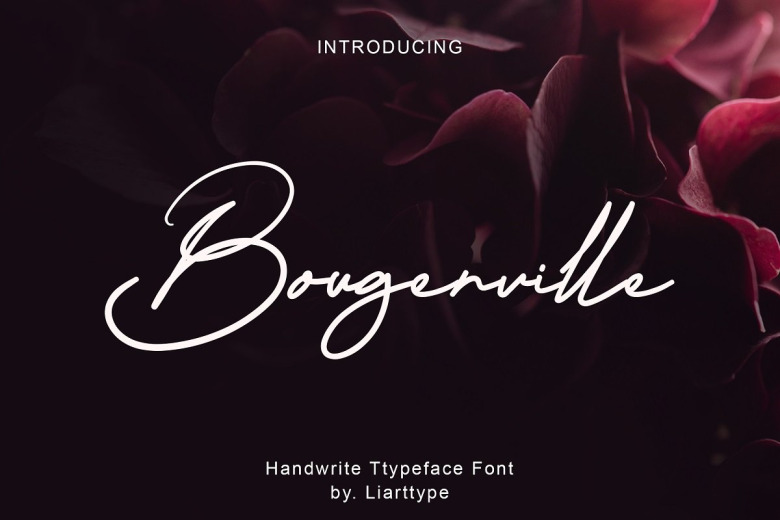
Bougenville Font
Bougenville Font is a modem handwritten monoline script and script styles which create the perfect sense of a professional script and script, commercial font which is ideal for any design project such as logo design, website design, social media post and may more. This versatile font can be used for wedding invitations, thank you cards, quotes, greeting cards, logos, business cards, and every other design which needs a customized touch.
Bougenville Handwritten Font